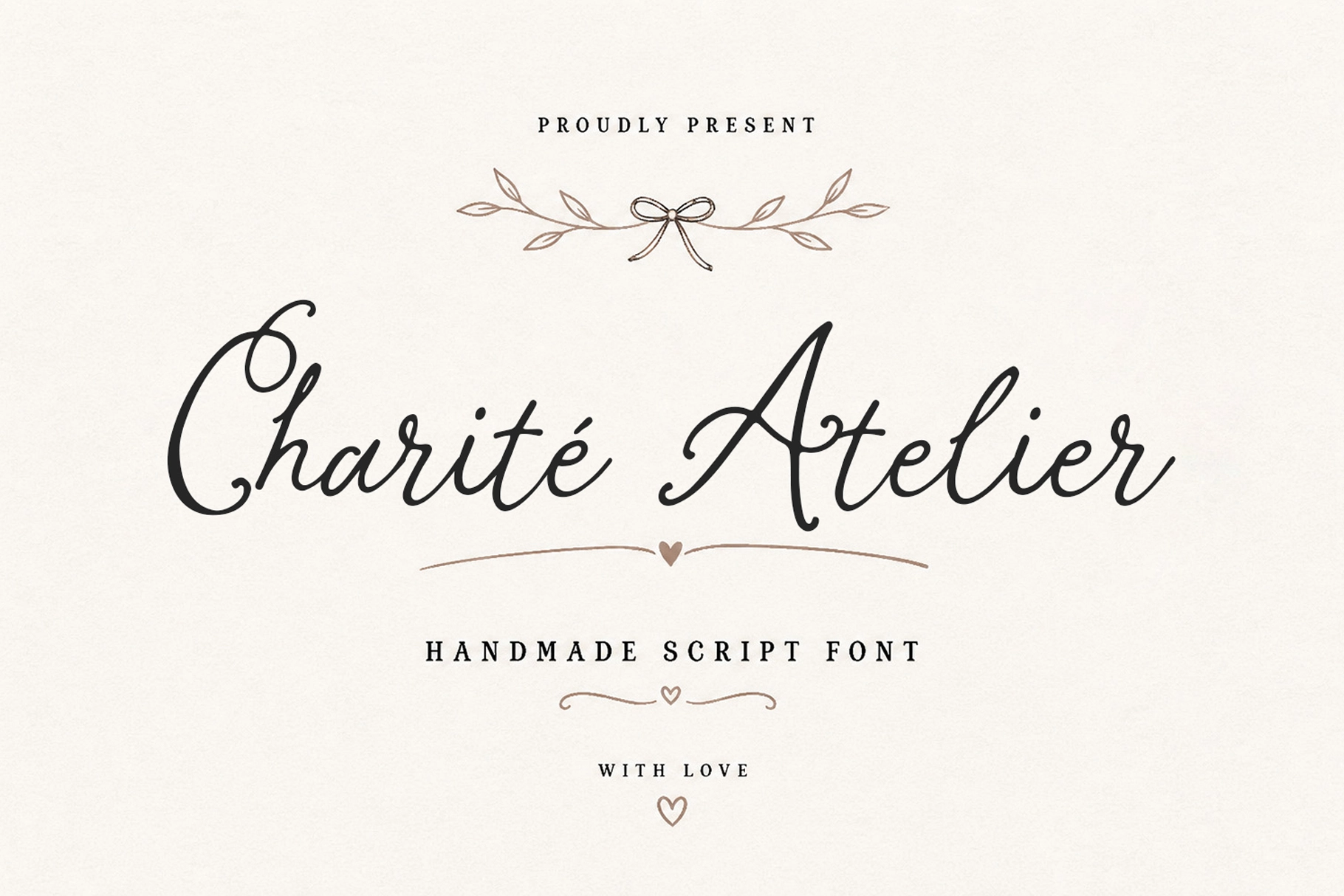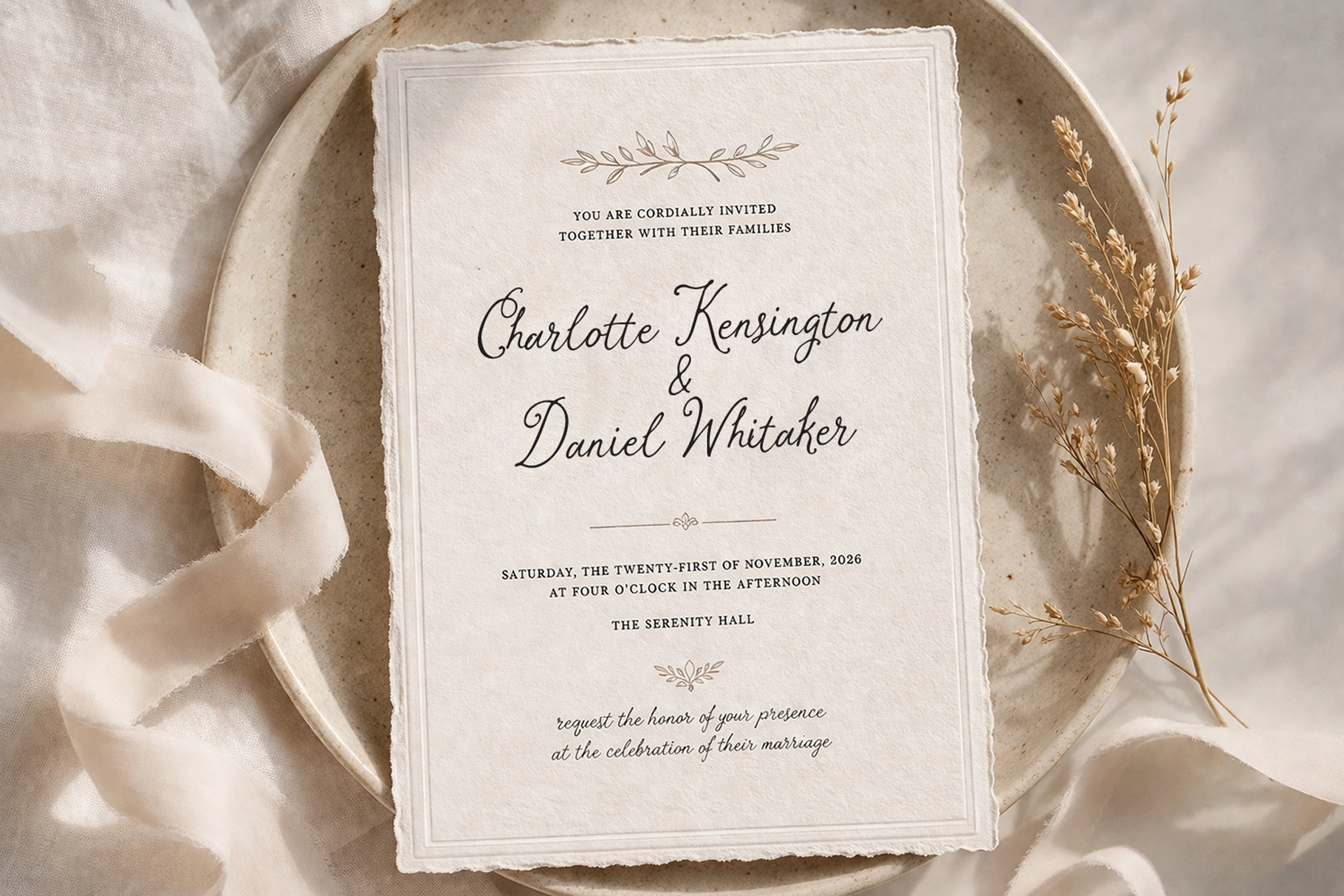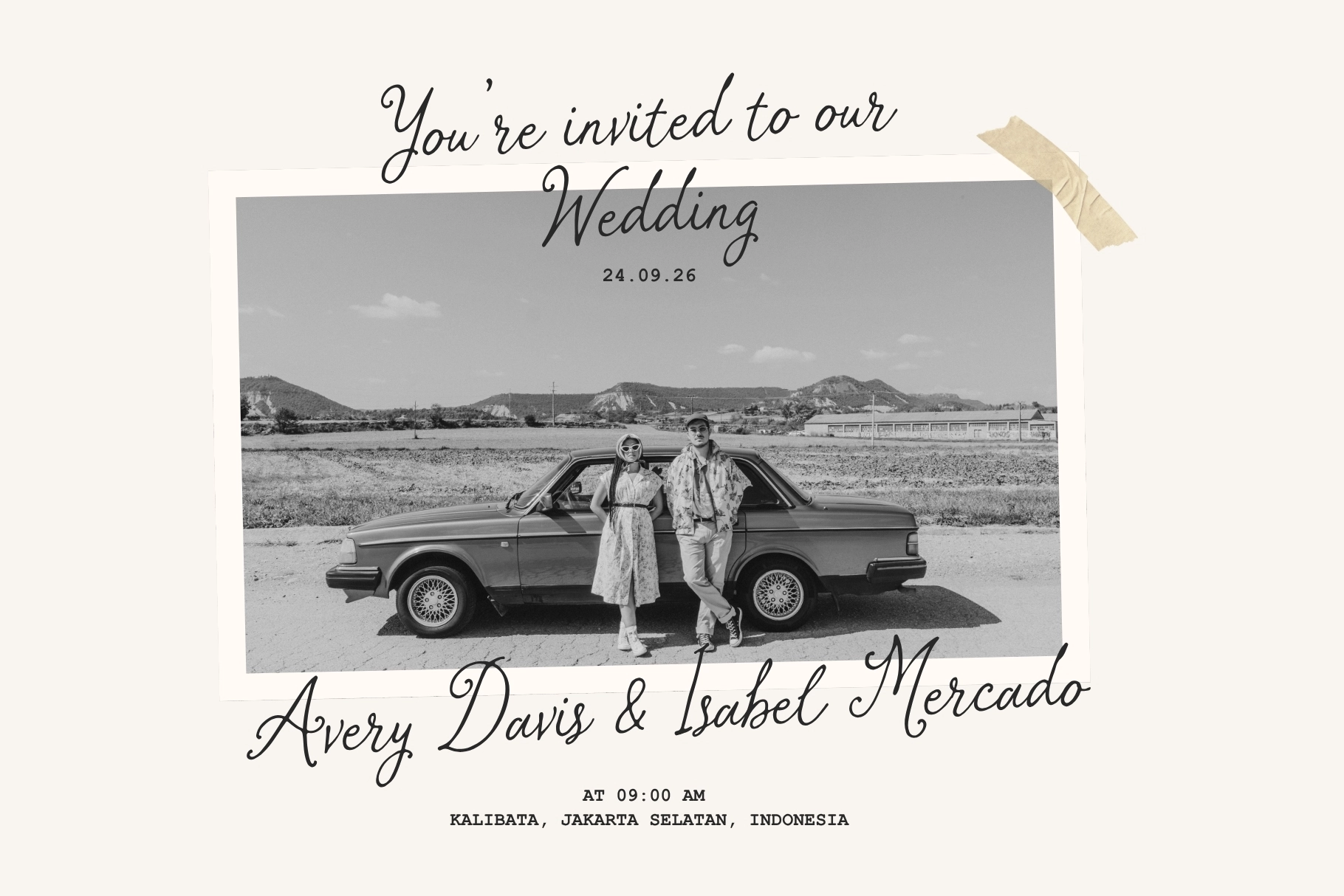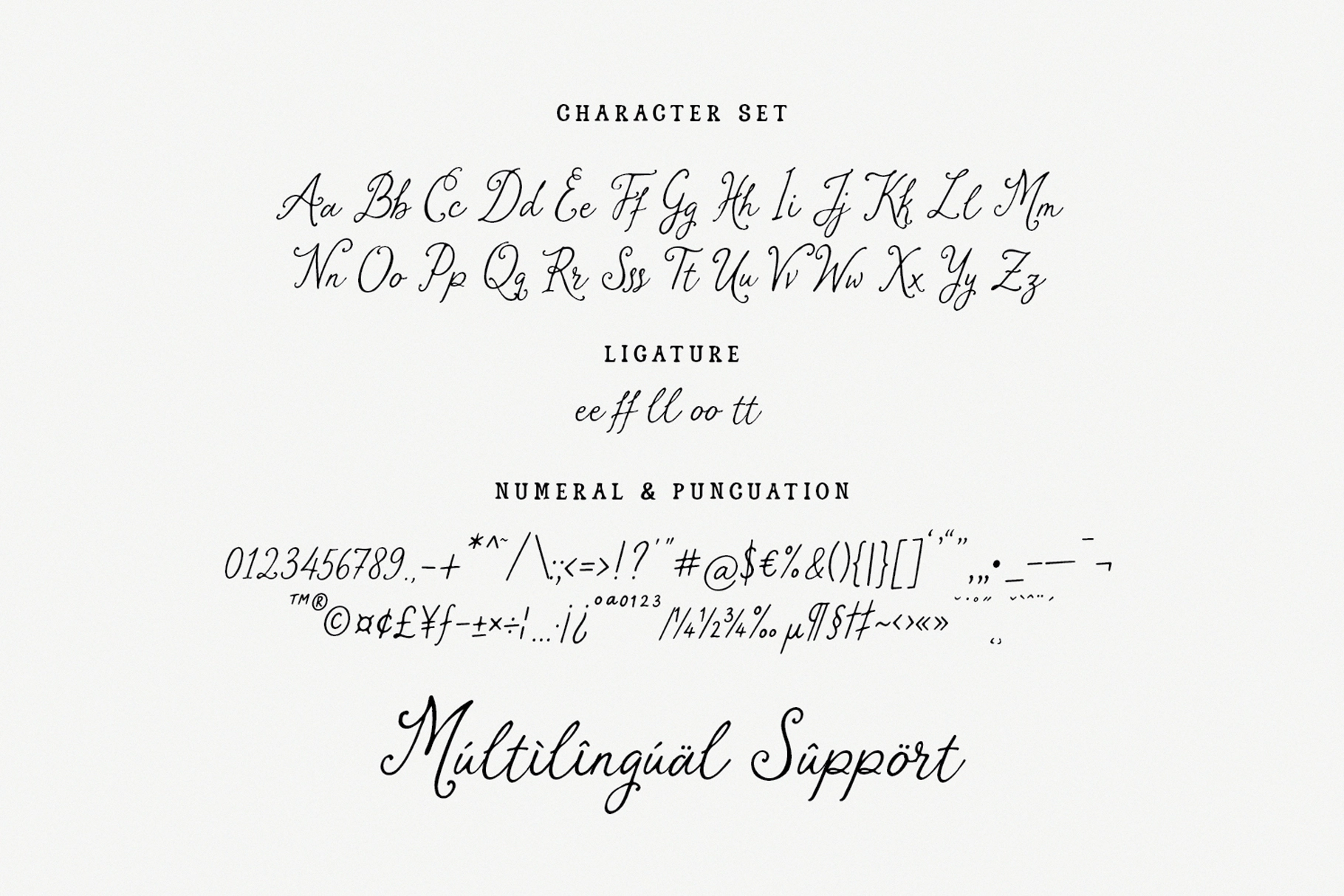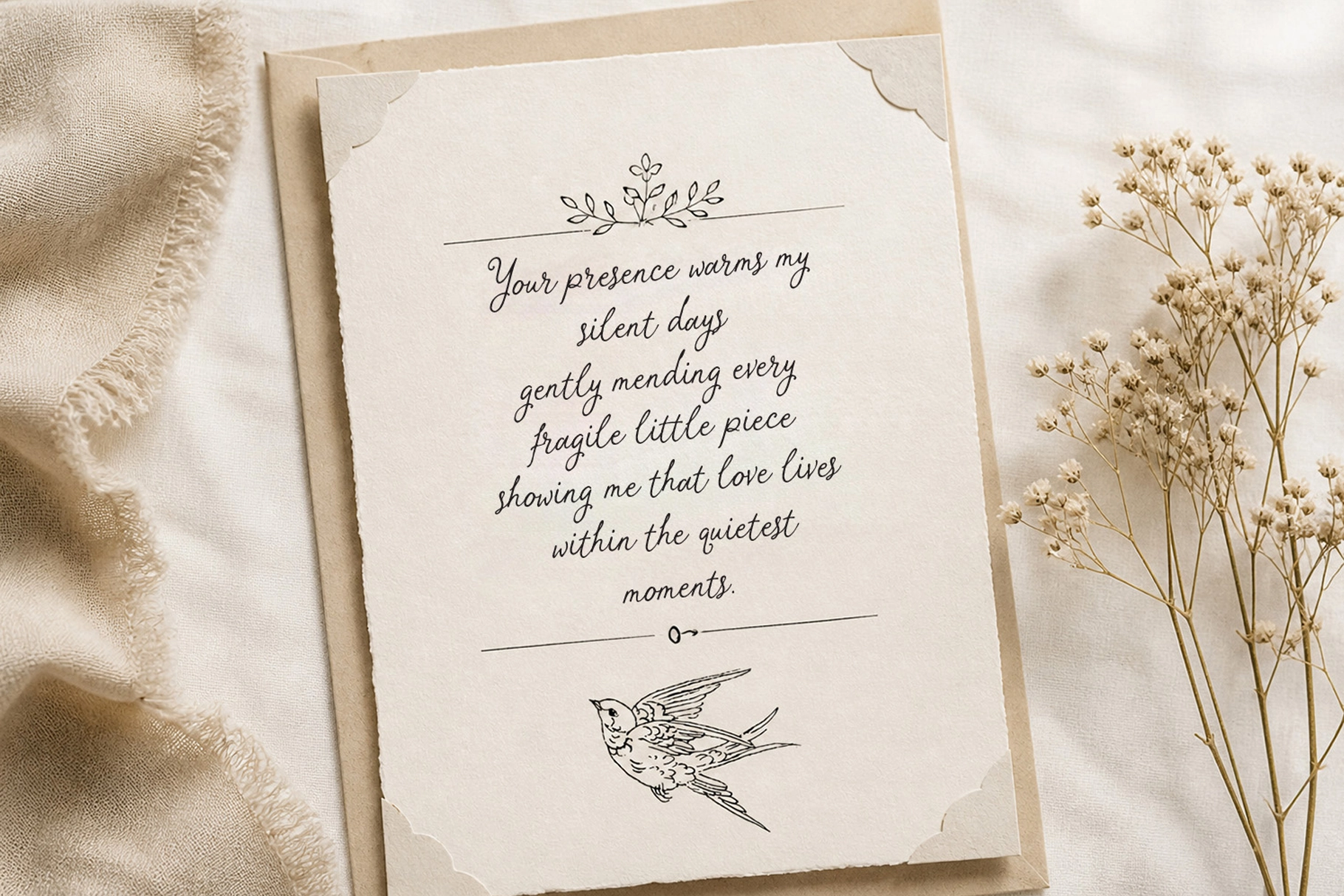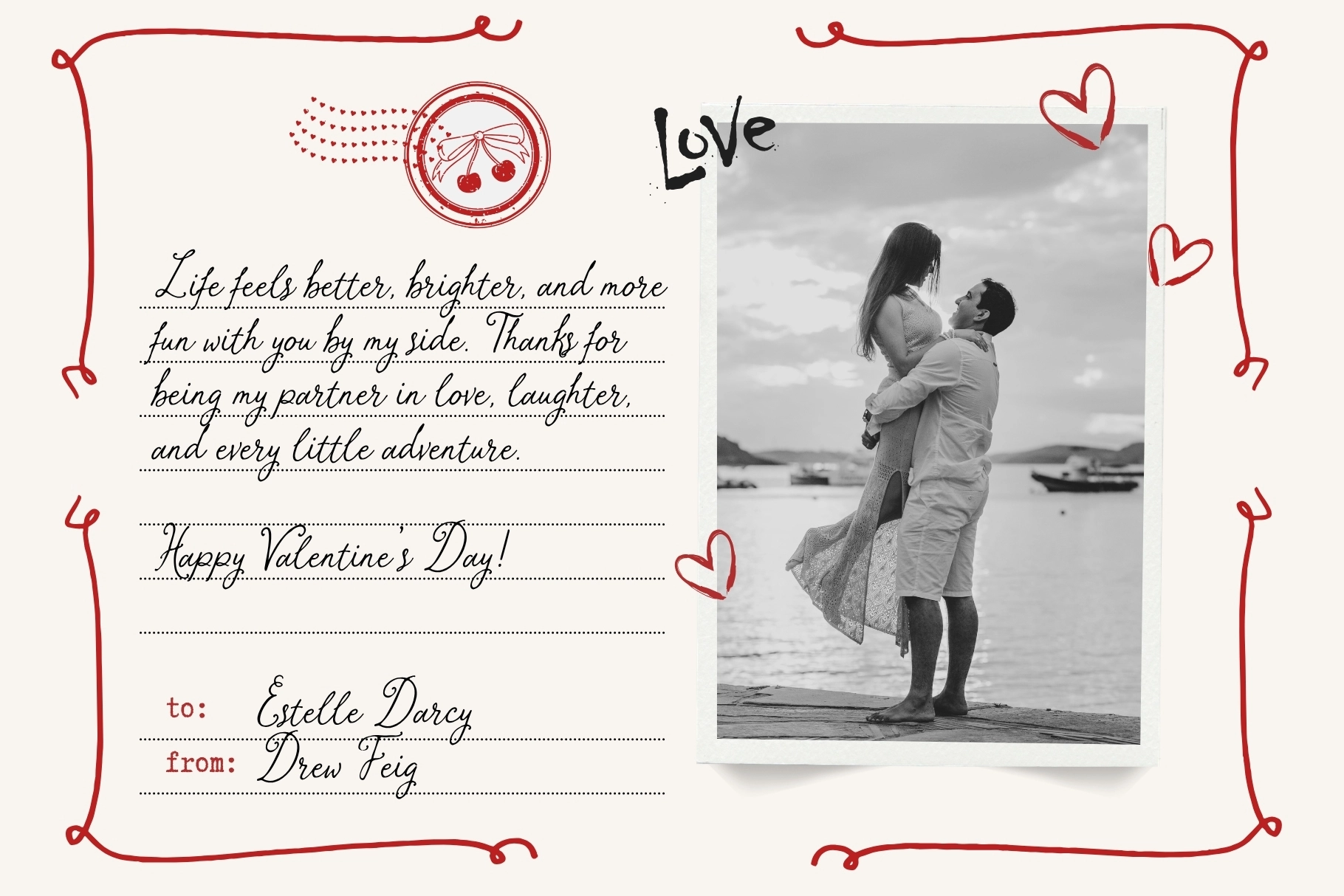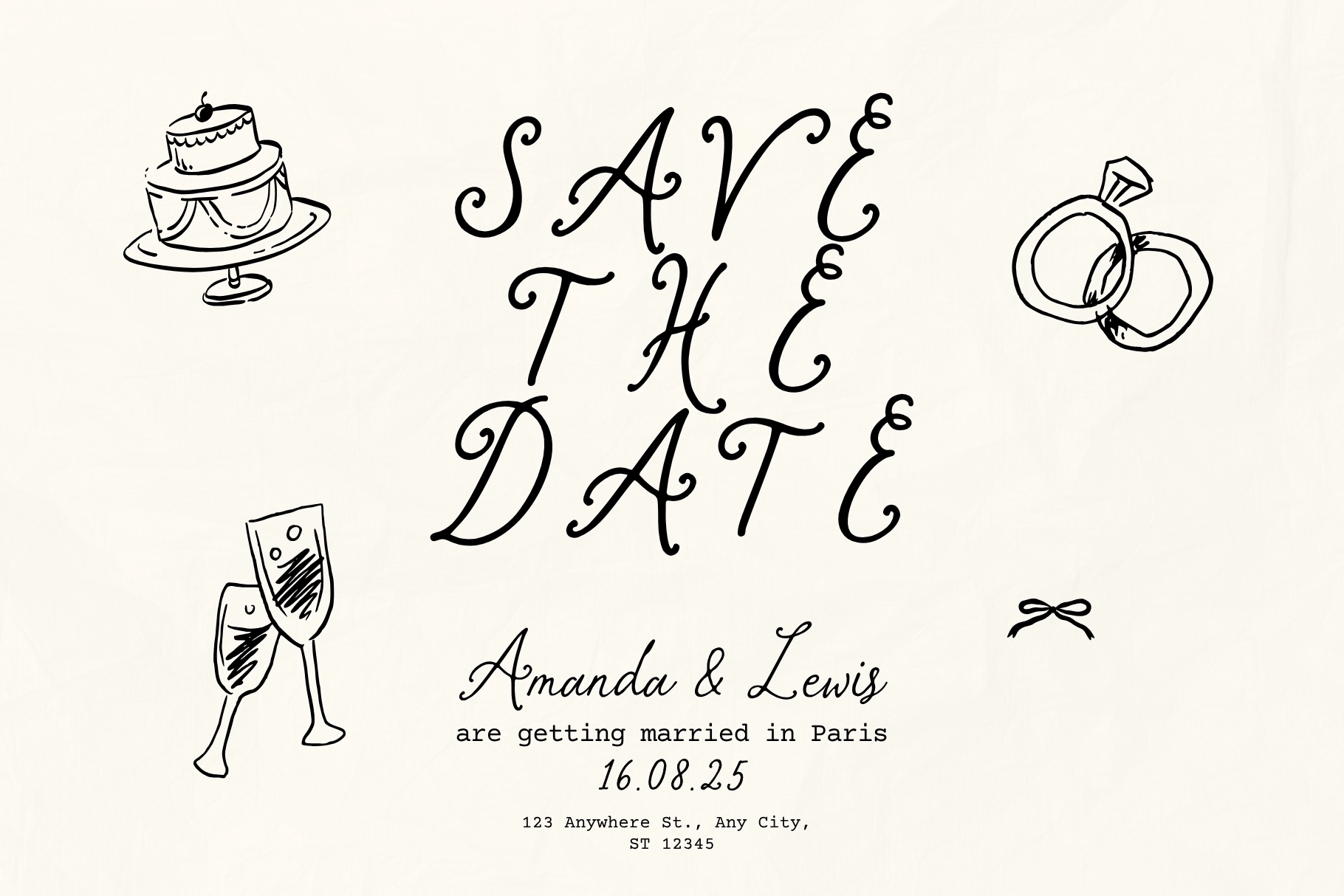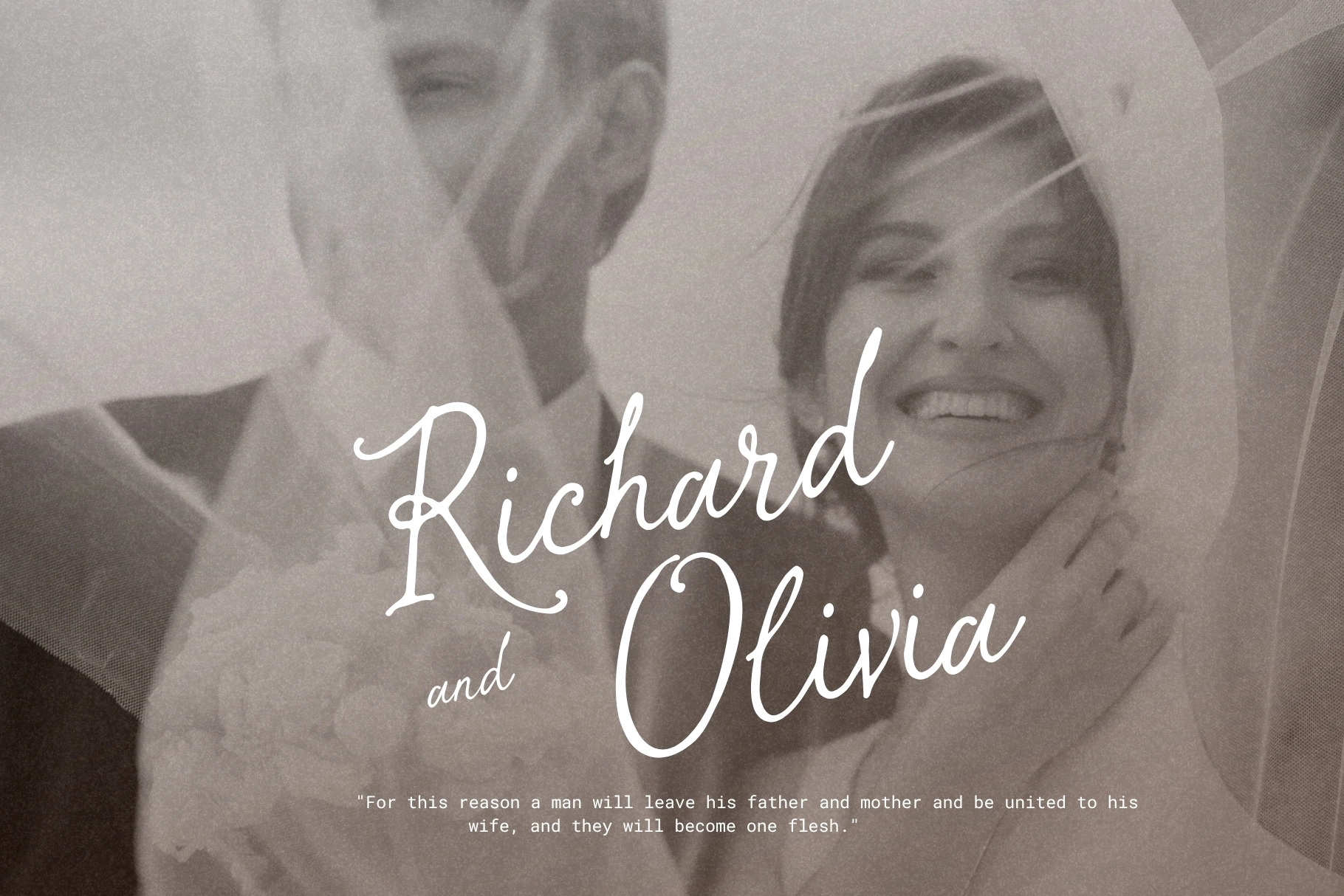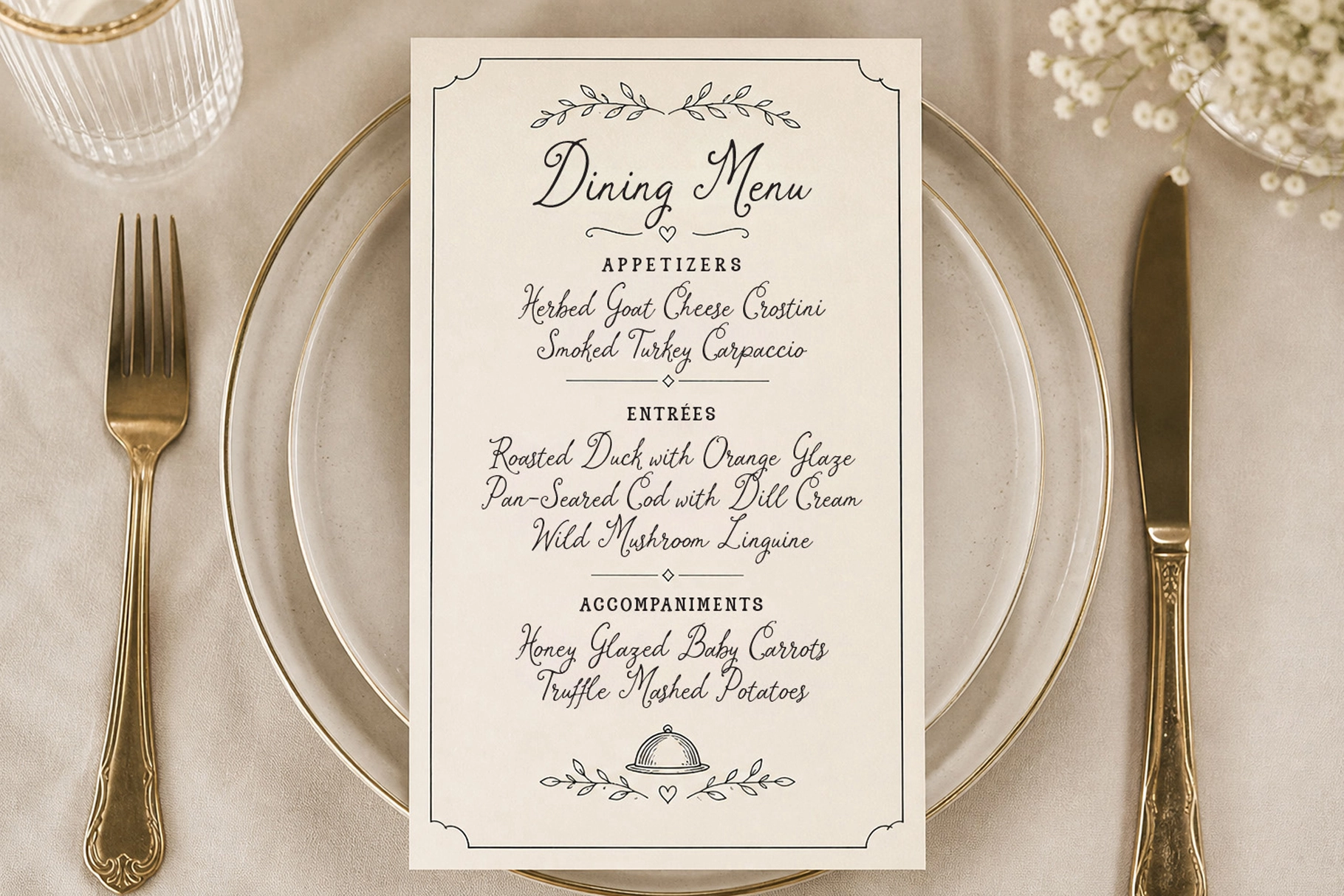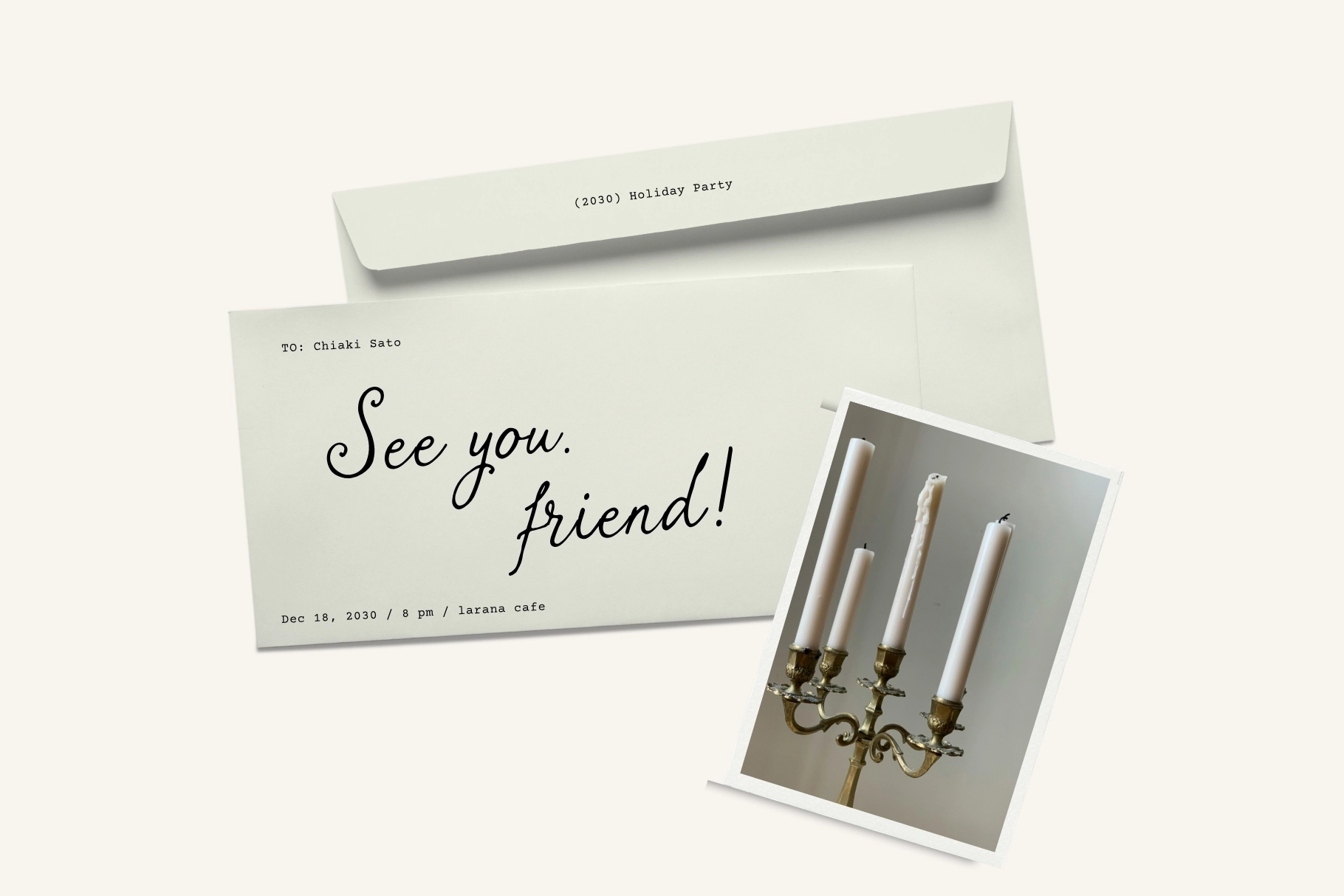
Charite Atelier - Elegant Handmade Script Font
This script font is graceful, romantic, and finely drawn, with flowing curves, delicate strokes, and ornamental capitals that bring a personal hand-lettered quality to formal designs. Its slender lines and soft connections make it especially suited for wedding stationery, elegant branding, and sentimental printed pieces.
Charite Atelier works beautifully for wedding invitations, save-the-date cards, RSVP cards, Valentine’s notes, greeting cards, boutique logos, candle labels, perfume packaging, floral branding, thank-you cards, quote prints, monograms, editorial accents, and more. The ligatures add a smooth written rhythm, while the numerals, punctuation, and multilingual characters keep detailed layouts polished from names to addresses.
- Ligatures
- Numerals, Punctuation & Symbols